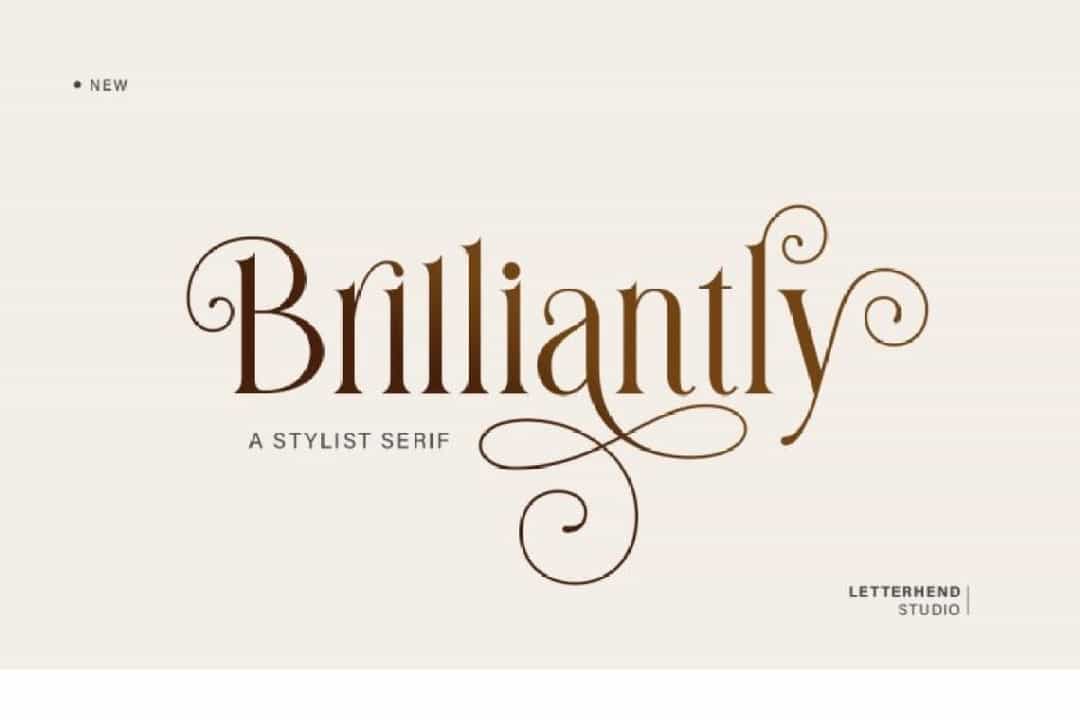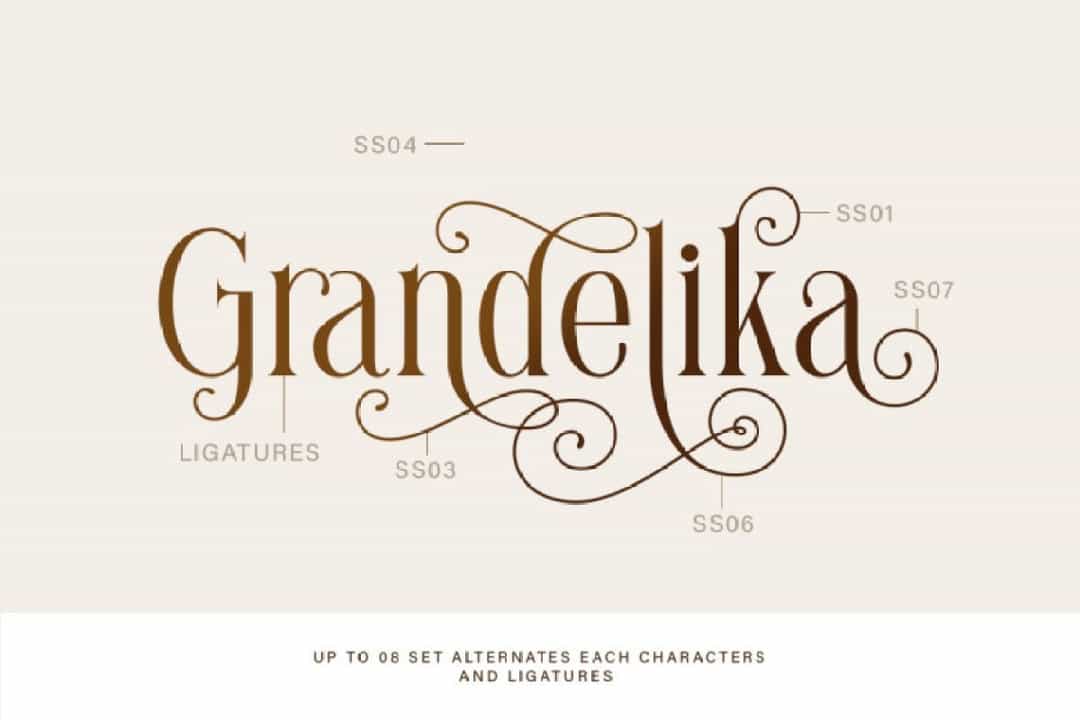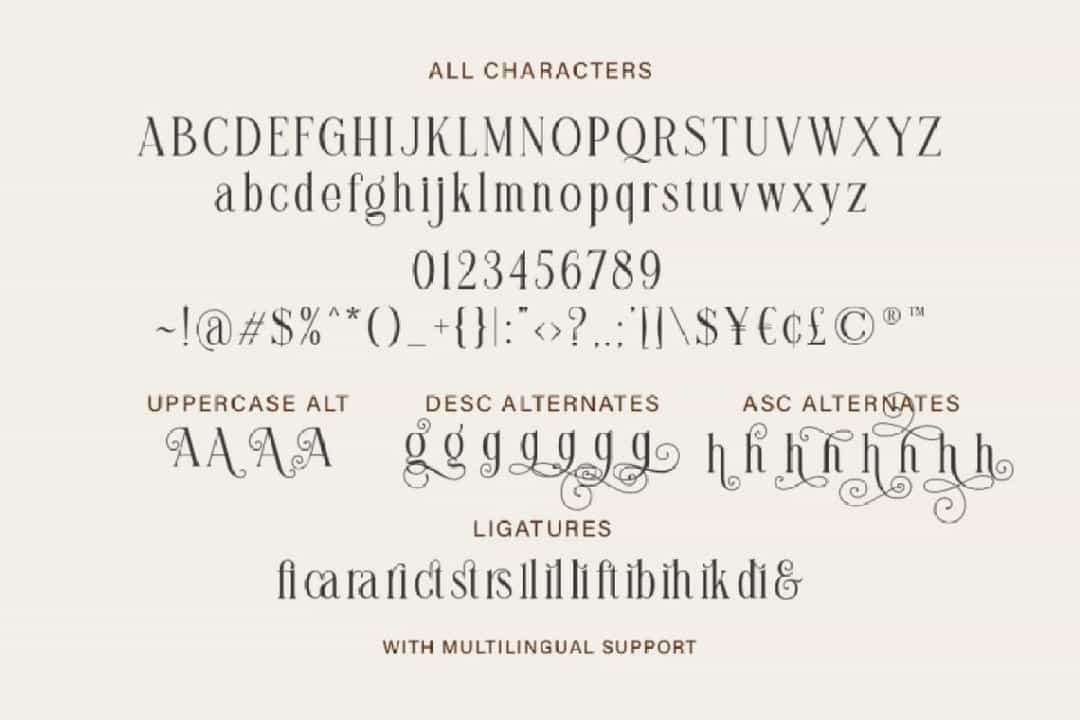
Brilliantly is our newest serif font release and has swirled swashes in several alternates to make it perfect for logos and letters. It is an elegant typeface with serifs connected with swirled swashes, so this typeface is unique and you will not find another similar one. This font was purposefully designed for logos and formal forms that include invitation, label, invitation log